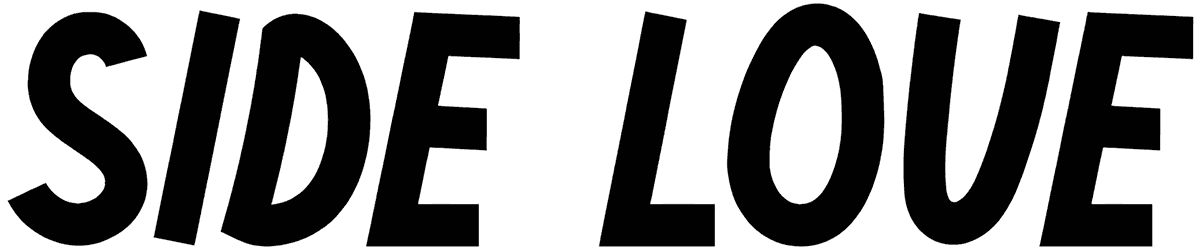
Side Love Font
Here we come again to proudly introduce a marvelous cartoon font mostly known as the Side Love that comes with angular letters and looks insanely suitable for any kind of creative ideas.
Aside from the lack of lowercase letters, it can bring a sense of momentum, futuristic, vivacity, or joy to all of your animation posters, social media posts, stickers, and branding projects, or stickers. We strongly recommend you visit the RB archive for more artistic products.